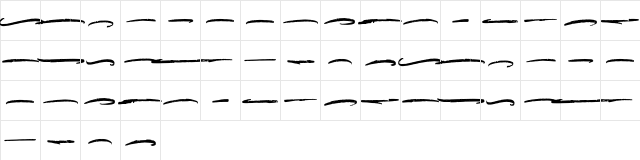
Hallington Swash Regular
Design Context for Hallington Swash Typeface
Hallington Swash flows with the natural rhythm of handwritten lettering, making it ideal for designs that call for warmth and personal expression.
Font Pairing: Combine Hallington Swash with a simple geometric sans for maximum contrast — the tension between flowing curves and clean structure is a classic typographic pairing.
Pro Tip: Pair Hallington Swash with a clean sans-serif for supporting text. The contrast between fluid script and geometric structure creates an elegant typographic hierarchy.